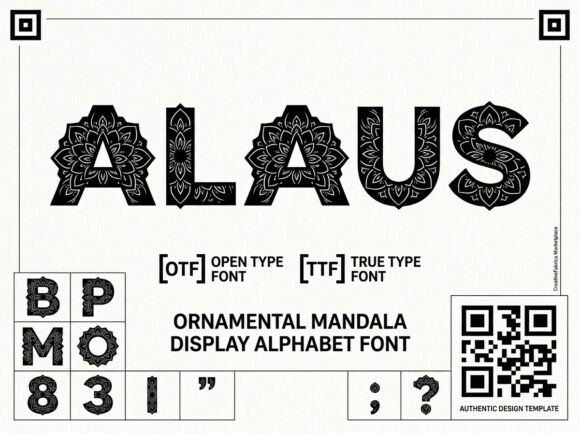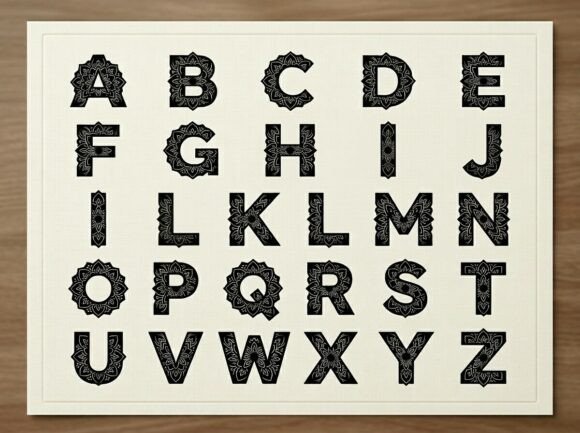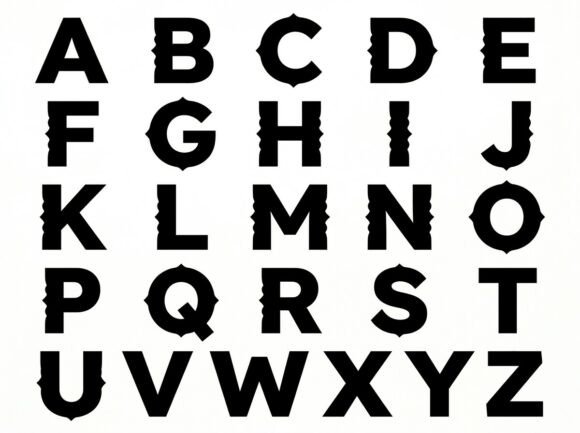
Unleash Your Creativity with Alaus Font
Have you ever stared at a blank canvas, waiting for the perfect idea to strike? The moment when everything falls into place, and your creative vision starts to take shape. It’s a rush of excitement and a sense of accomplishment, knowing that you’re about to bring something new and original to life. For designers, this moment is even more precious, as it requires a delicate balance of creativity and technical skill.
Enter the Alaus Font, a decorative display font designed to be the centerpiece of any layout. With its bold, artistic elements and strong character, it’s the perfect tool for creators who want to break away from the ordinary. Whether you’re working on a high-end branding project, packaging design, or a creative campaign, the Alaus Font delivers a professional aesthetic without compromising on personality.
As a valuable addition to your design toolkit, the Alaus Font offers a range of benefits, from its seamless performance across operating systems to its advanced typographic features. With its All-Caps display typeface, it’s a powerful tool for logos, titles, and decorative initials, making it a must-have for designers who want to elevate their creative projects to the next level.
Alaus Font Key Features
- Unique Characteristics: Alaus Font features a distinctive, modern design with a unique blend of geometric and organic elements, making it suitable for a wide range of design applications.
- Font Weight and Style: Alaus Font is available in various weights, including Light, Regular, Medium, Bold, and Black, as well as italic and oblique styles, providing designers with a range of options for creative expression.
Alaus Font Review
Overall, I’m quite impressed with the Alaus font. It has a unique aesthetic that’s perfect for creative projects or brands looking for something distinctive.
- Customizability: The font offers a range of weights and styles, allowing for flexibility in design projects.
- Expressive Characters: The Alaus font features expressive characters that can add a touch of personality to your designs.
- OpenType Features: The font includes OpenType features, making it easy to access advanced typographic capabilities.
- Limited Font Families: Compared to other fonts, Alaus has a relatively small range of font families, which might limit its versatility.
- Not Suitable for Body Text: The Alaus font is more suited for headings and titles due to its unique, expressive style.
The Alaus font is a great choice for designers looking for a distinctive, expressive typeface. While it may have some limitations, its customizability and OpenType features make it a solid addition to any design project. However, it’s essential to use it judiciously, as its unique style may not be suitable for all types of projects.
Alaus Font is commonly used for:
- Typography-heavy designs
- Posters and brochures